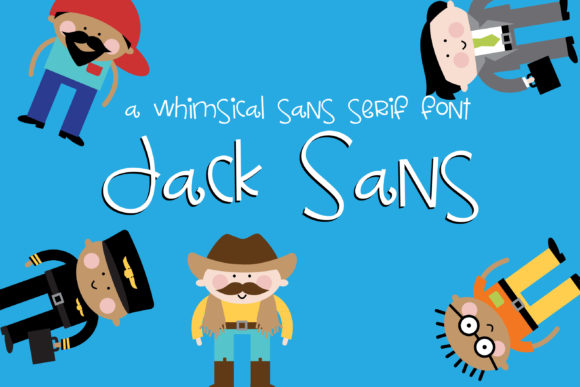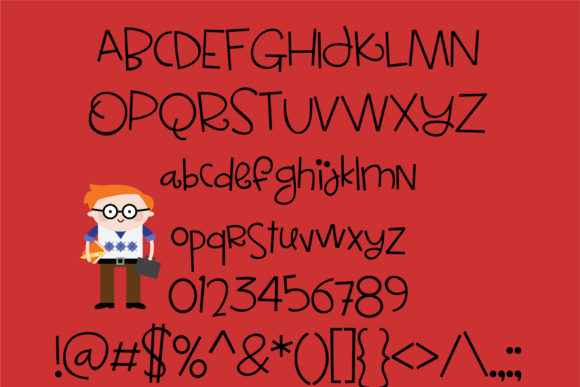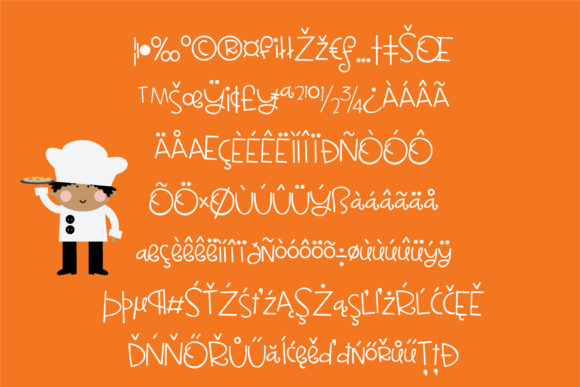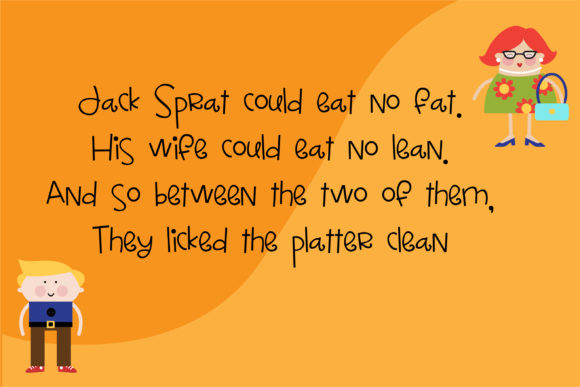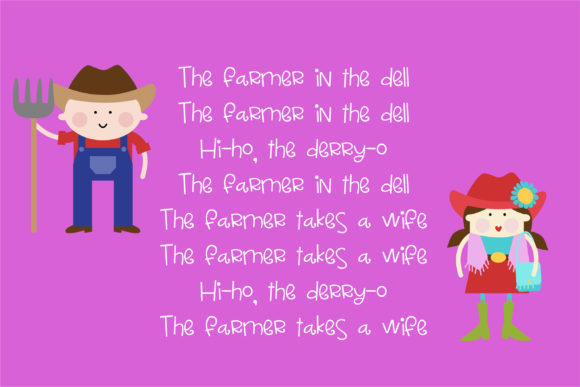
HomeScript FontsJack Sans Font Script Fonts Jack Sans Font FacebookXPinterestWhatsApp Jack Sans Font Poster 2 Jack Sans Font Poster 3 Jack Sans Font Poster 4 Jack Sans Font Poster 5 About Jack Sans Font This whimsical sans serif font has a fun and bouncy baseline and is the coordinated sister font of PN Jack Sprat. DOWNLOAD ON CREATIVE FABRICAThis font is sold and delivered by Creative Fabrica. Font Canyon may earn a commission if you buy through this link. People also explored Action Font Peony Font Shaynee Font Seintolop Font Rowad Font Eddieth Font Krasty Chips Font Goodly Font Smile Pumpkin Font 406 0 TagsJack Sans Font Previous articleThingamajig FontNext articleGrenadine Font LEAVE A REPLY Cancel reply Comment: Please enter your comment! Name:* Please enter your name here Email:* You have entered an incorrect email address! Please enter your email address here Website: Save my name, email, and website in this browser for the next time I comment. Personal Use Free Antaro Personal Use Free Read more about this font Makcex Personal Use Free Read more about this font First Be Lucky Personal Use Free Read more about this font Bitcrusher Condensed Bold Personal Use Free Read more about this font BLOG Where to Buy American Fonts Online in 2024 Where to Buy American Fonts Online: The Ultimate Guide for 2024 Looking for the perfect American font to elevate your design projects? You're in the... 5 Fonts That Will Dominate Design Trends in 2026 Using Fonts in Digital Marketing: Tips to Strengthen Your Brand Identity Fonts That Capture the Spirit of New York City